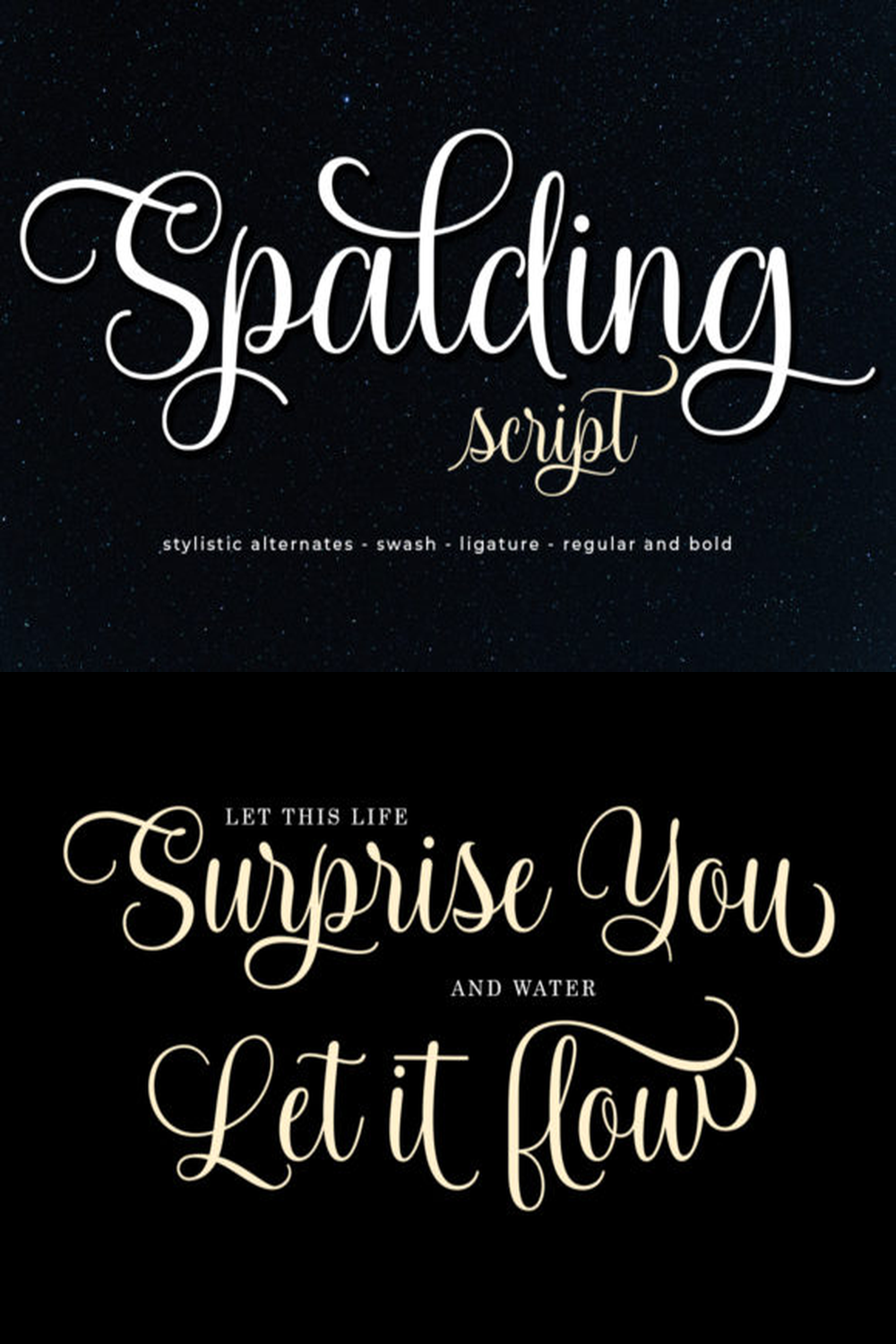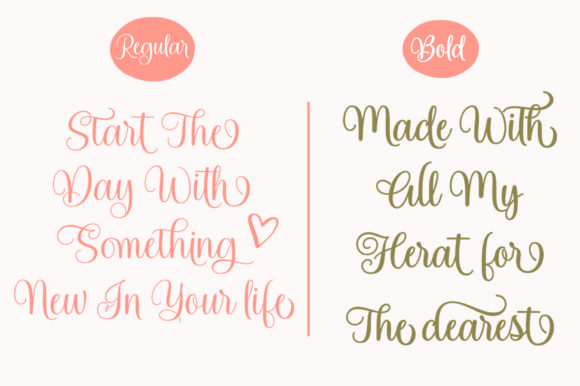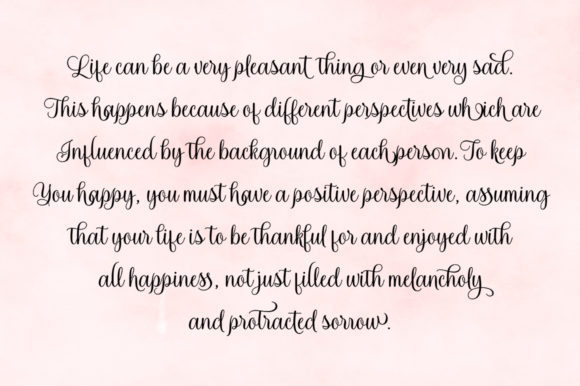
Spalding Font
About the Spalding Font
Step up your design game with Spalding Font, a font that exudes confidence and style. Spalding clebrates classic, romanticist calligraphy with each of its gorgeous swashes. Get inspired by its playfully unique feel!
Spalding Font Usage Examples